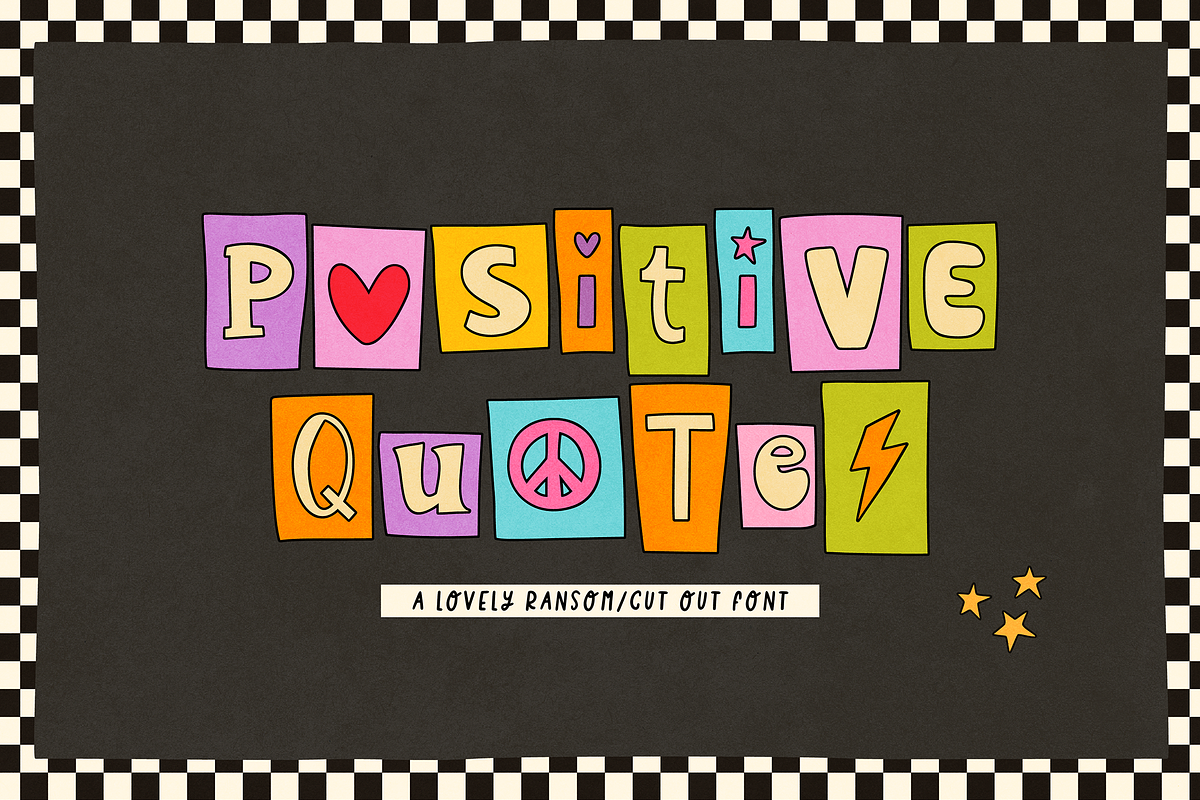
POSITIVE QUOTES Font Free Download is a cheerful and uplifting handwritten typeface designed to bring joy and optimism to your designs. With its playful curves, casual strokes, and friendly vibe, this font is perfect for inspirational quotes, social media graphics, greeting cards, planner stickers, lifestyle branding, and kids’ content.
This font captures the feel-good energy of a handwritten note or a motivational message, making it ideal for projects that aim to spread positivity and warmth.